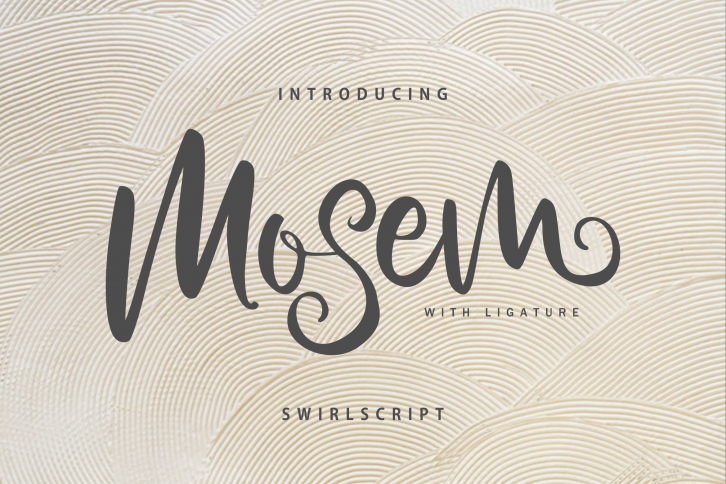
Mosem is a trendy and unique font with an authentic style. It was designed by Vunira and it's a great choice for creative people who need such a font. It was released on December 27, 2019 and the file size is 19.1 MB. Mosem will add an organic vibe to any design idea!